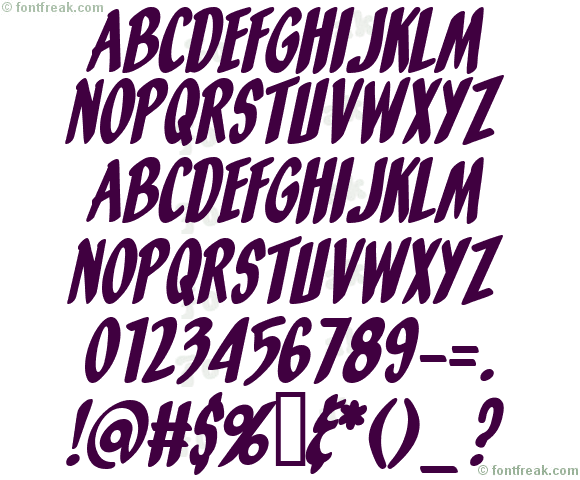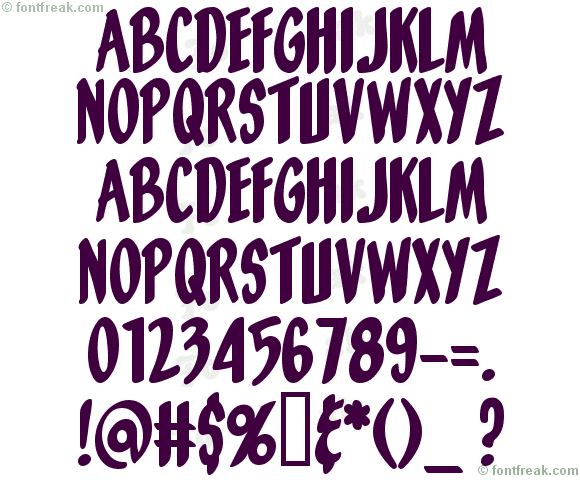
Orange Fizz
About Orange Fizz
Orange Fizz, created by Blambot Fonts, is a playful display font that exudes a sense of whimsy and energy. This freeware typeface features a unique, italicized style that sets it apart from traditional fonts. The letters are characterized by uneven stroke weights, giving the font a dynamic and lively appearance. The spacing between characters is well-balanced, allowing for easy readability while maintaining a fun and casual vibe. Decorative elements, such as exaggerated curves and playful swashes, add to its charm, making it ideal for creative projects.
This font is particularly well-suited for use in designs that require a touch of personality. It shines in contexts such as children's book covers, where its playful nature can capture the attention of young readers. Additionally, Orange Fizz is perfect for branding and marketing materials for businesses targeting a youthful audience, such as toy stores or cafes. Wedding invitations can also benefit from this font's unique flair, adding a modern twist to traditional stationery. Moreover, it can be effectively utilized in social media graphics and promotional content, helping to create eye-catching visuals that stand out in crowded feeds.
Targeting graphic designers, small business owners, and content creators, Orange Fizz offers a versatile option for those seeking to infuse their projects with a sense of fun and creativity. Its free availability makes it accessible to a wide audience, encouraging experimentation and innovation in design.
What truly sets the Orange Fizz font apart is its ability to evoke joy and excitement through typography. Whether you are crafting a vibrant poster or designing a playful logo, this font brings a unique character that resonates with viewers. For those interested in enhancing their design toolkit, the Orange Fizz font free download is an excellent choice.